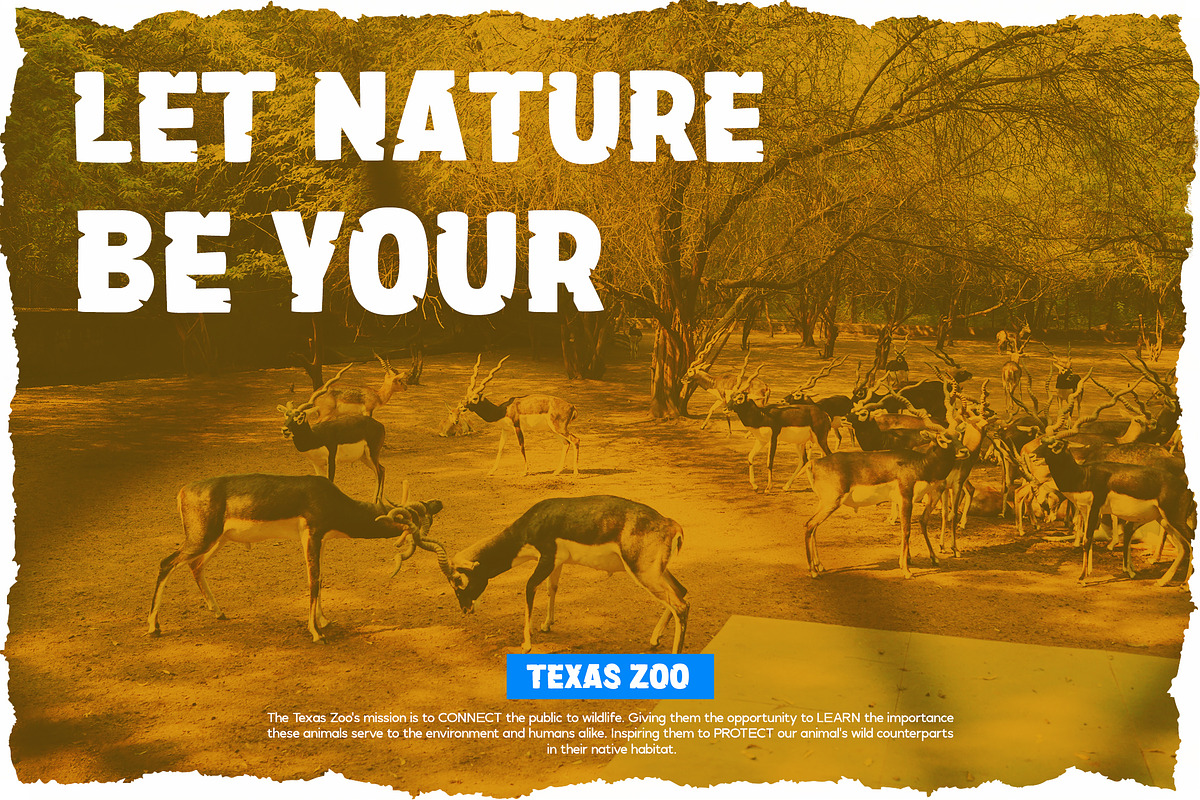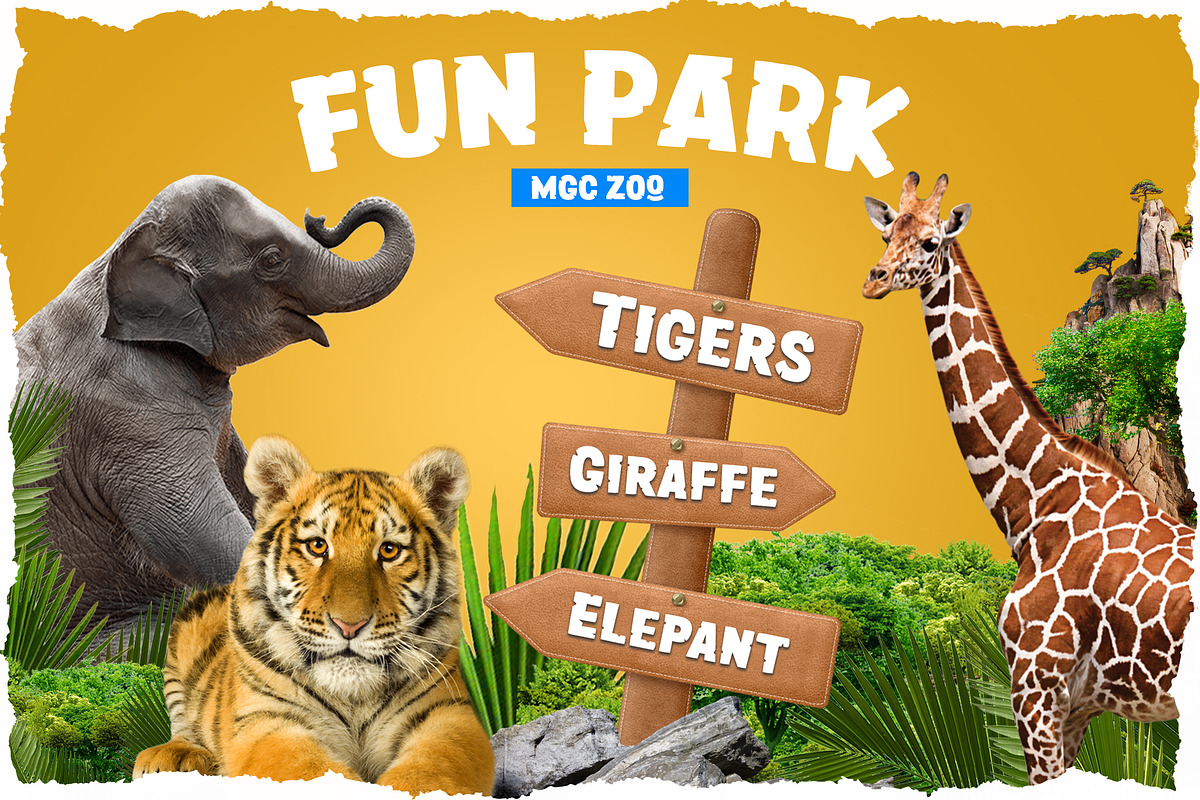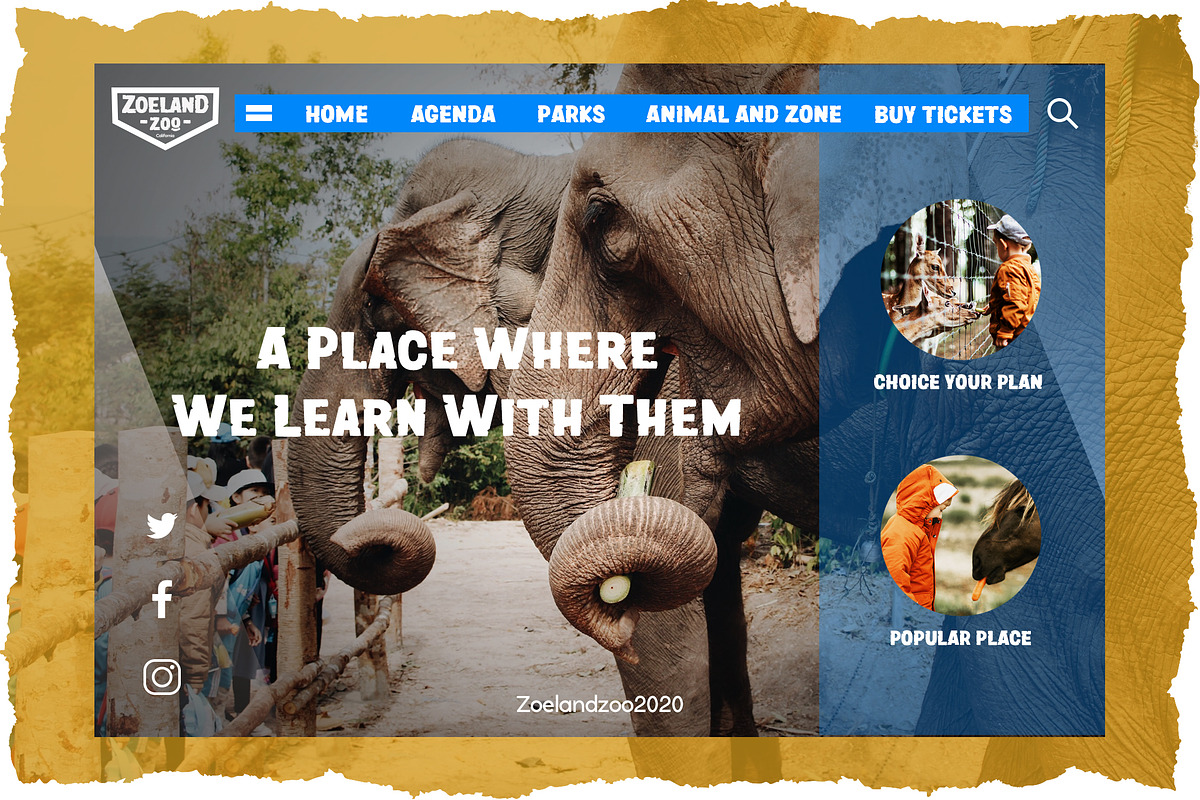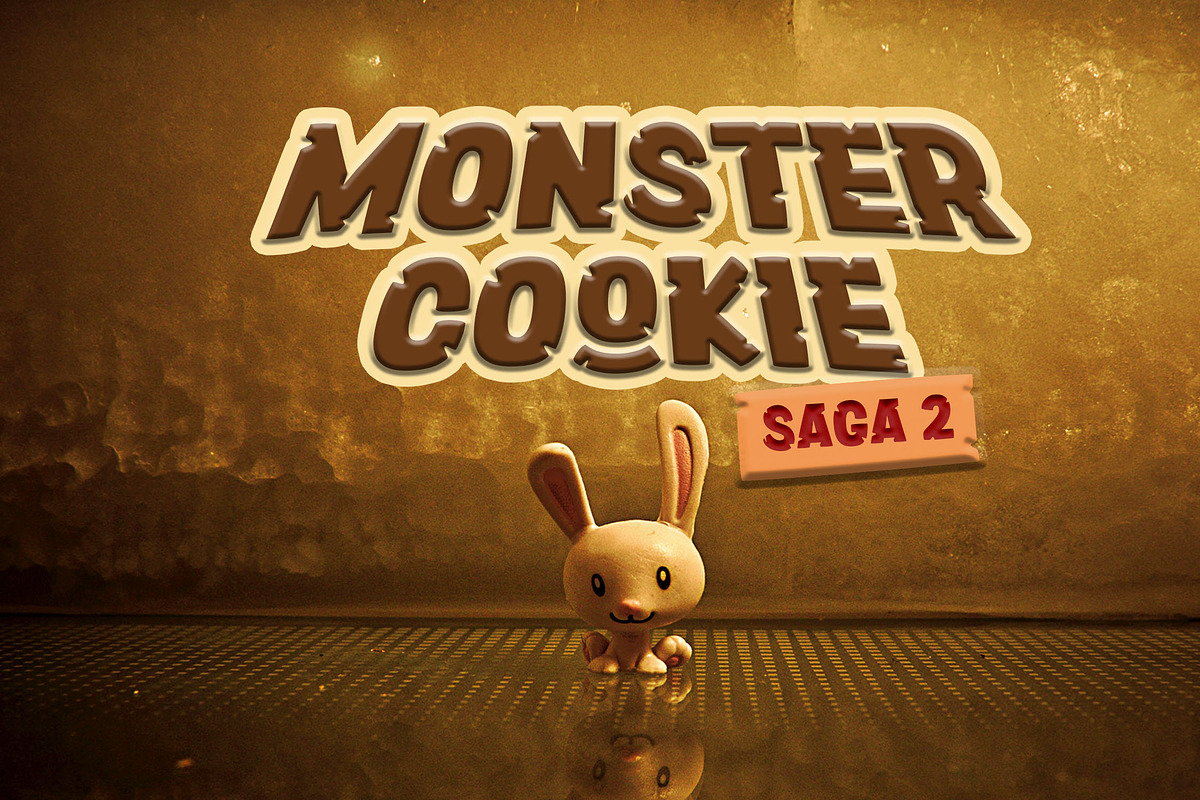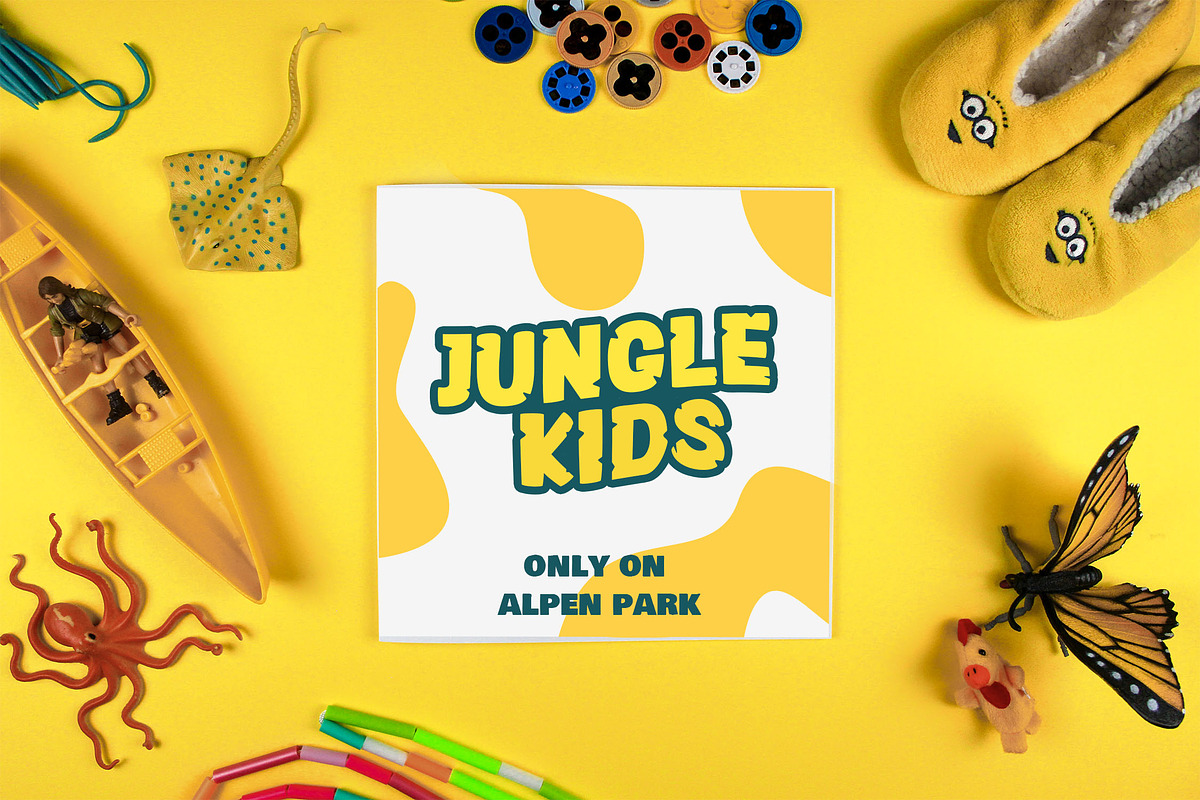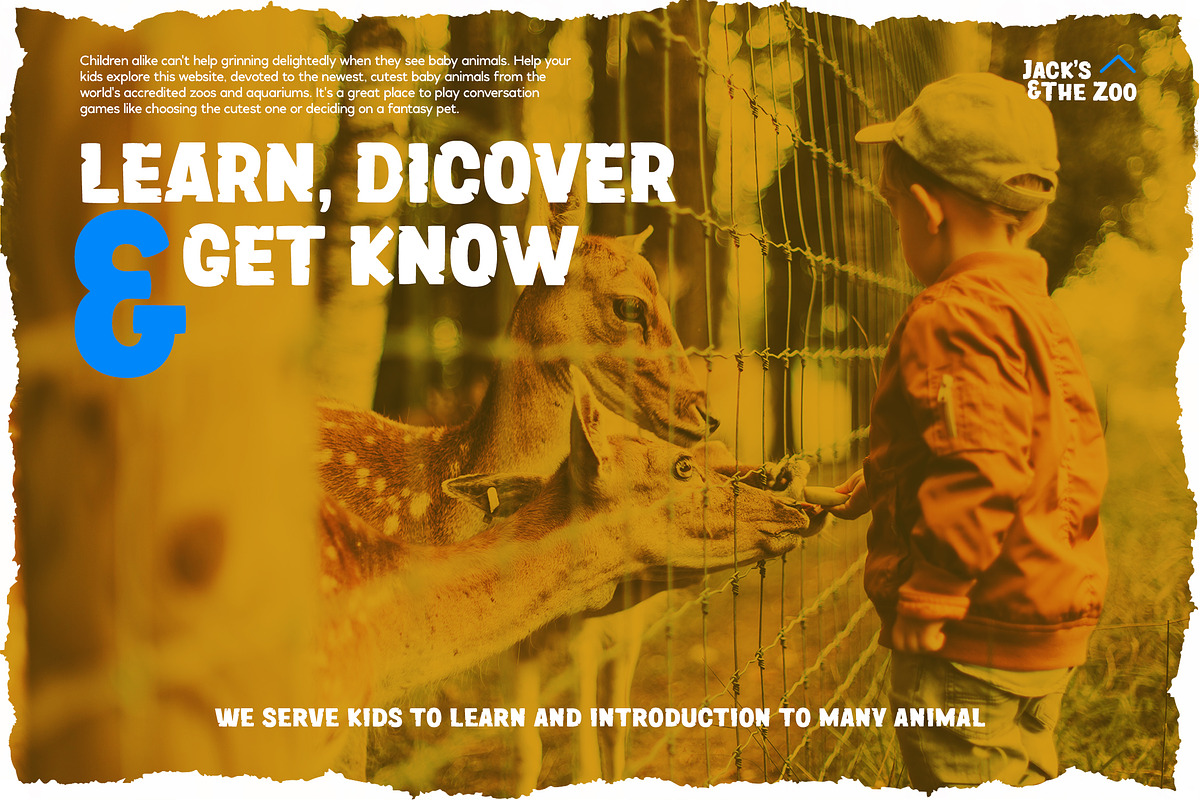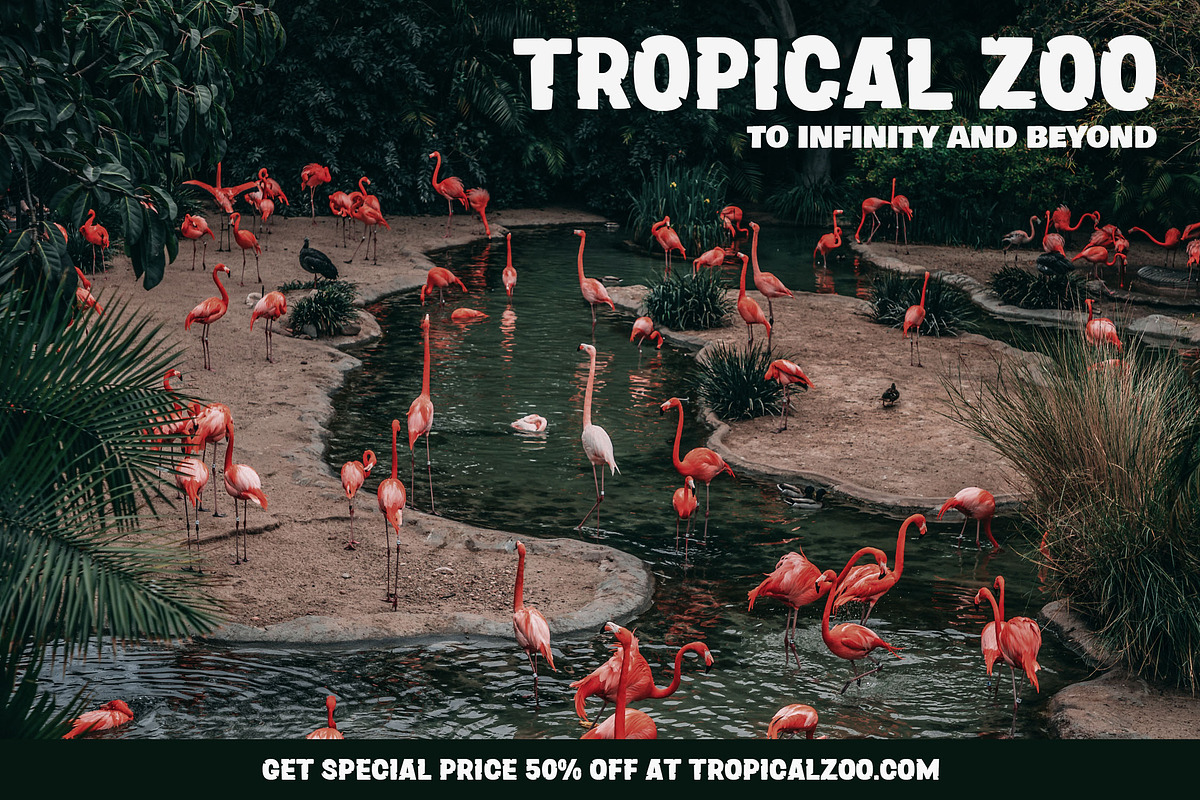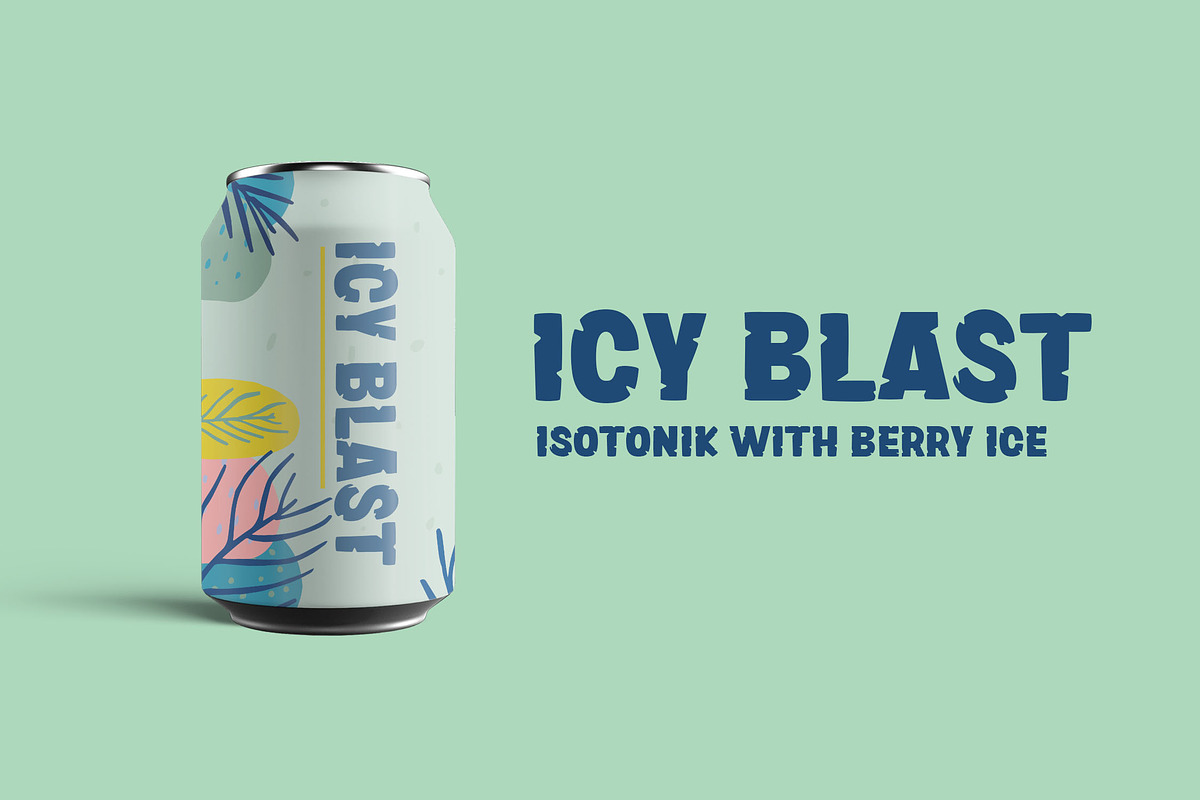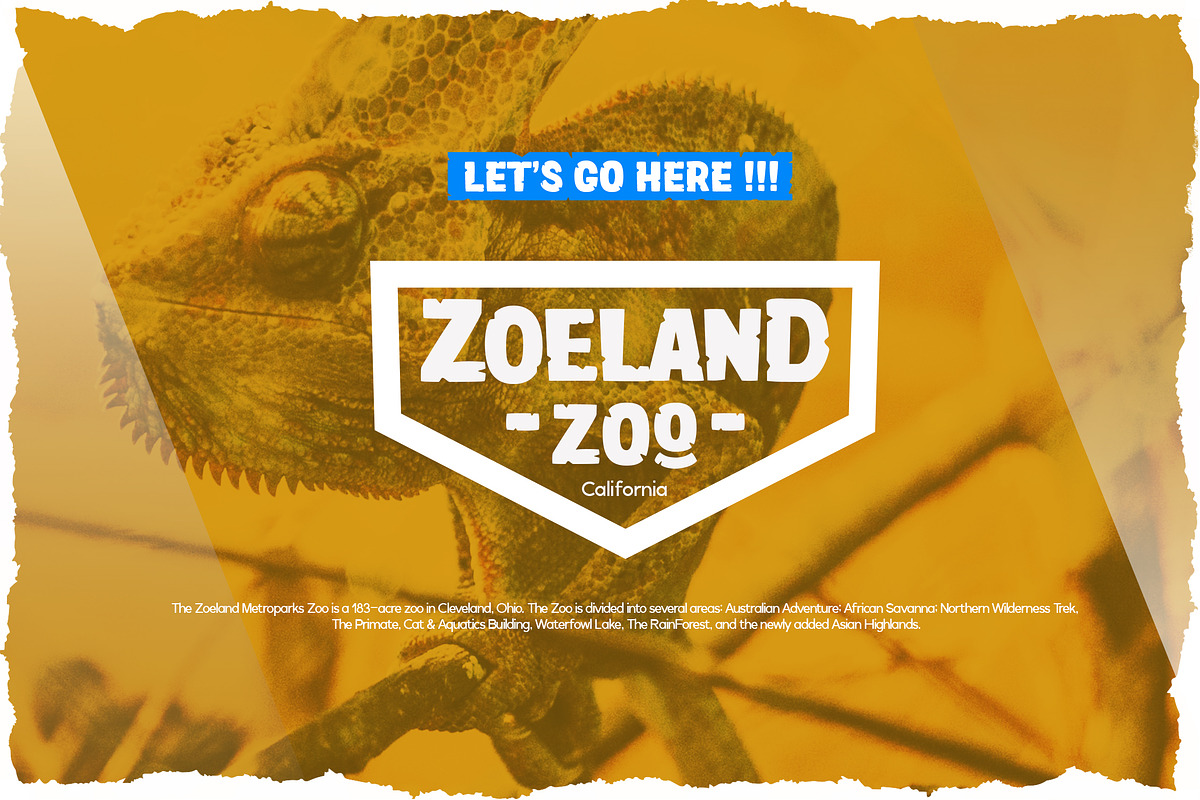
Zoonaji
Zoonaji Sans Display Font
Zoonaji is Allcaps Sans Serif display (2 versions of the uppercase) font is perfect for your up coming projects. Such as logo branding, editorial design, stationery design, blog design, modern advertising design, card invitation, art quote, home decor, book/cover title, special events ( wedding, birthday, etc ), and any more.